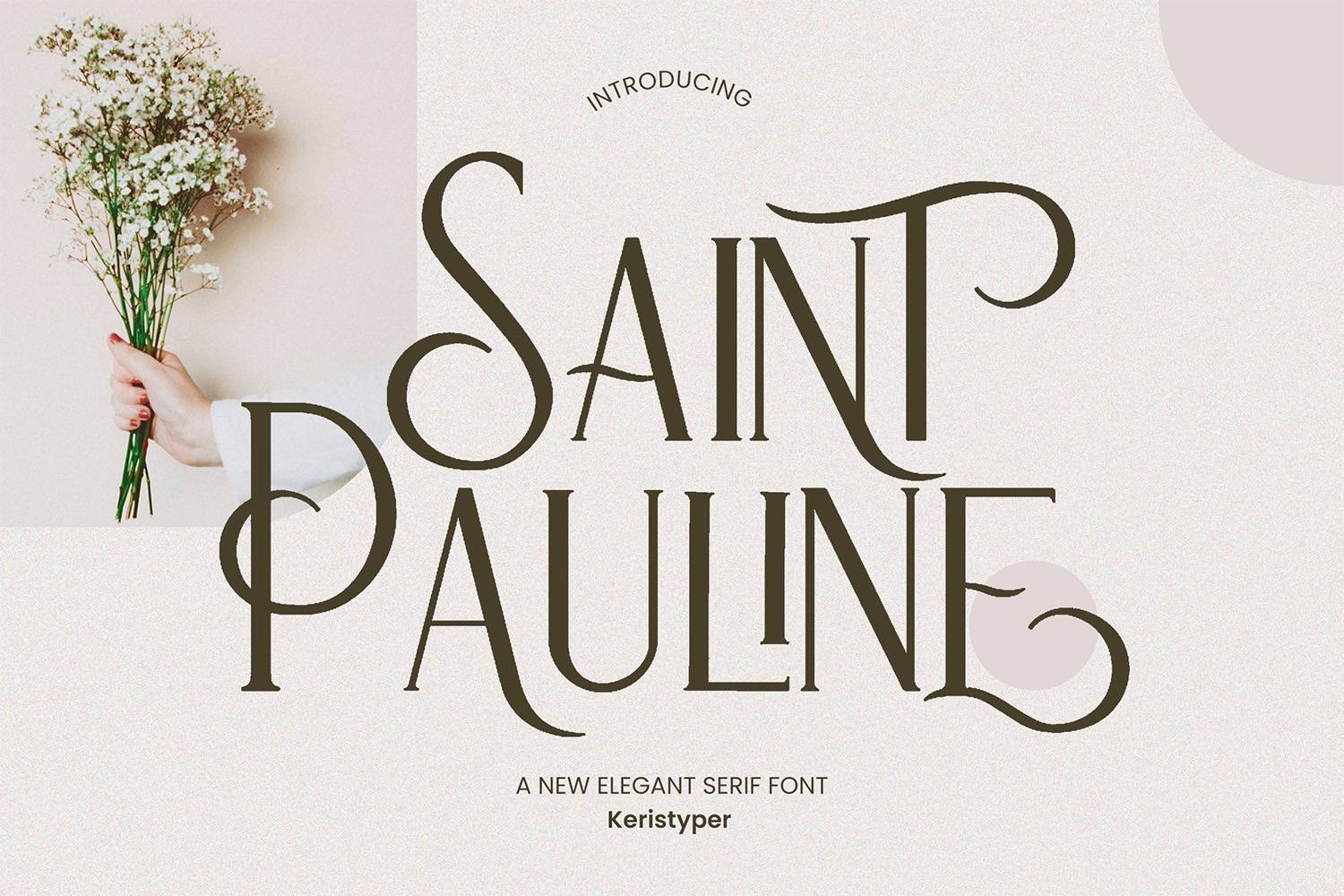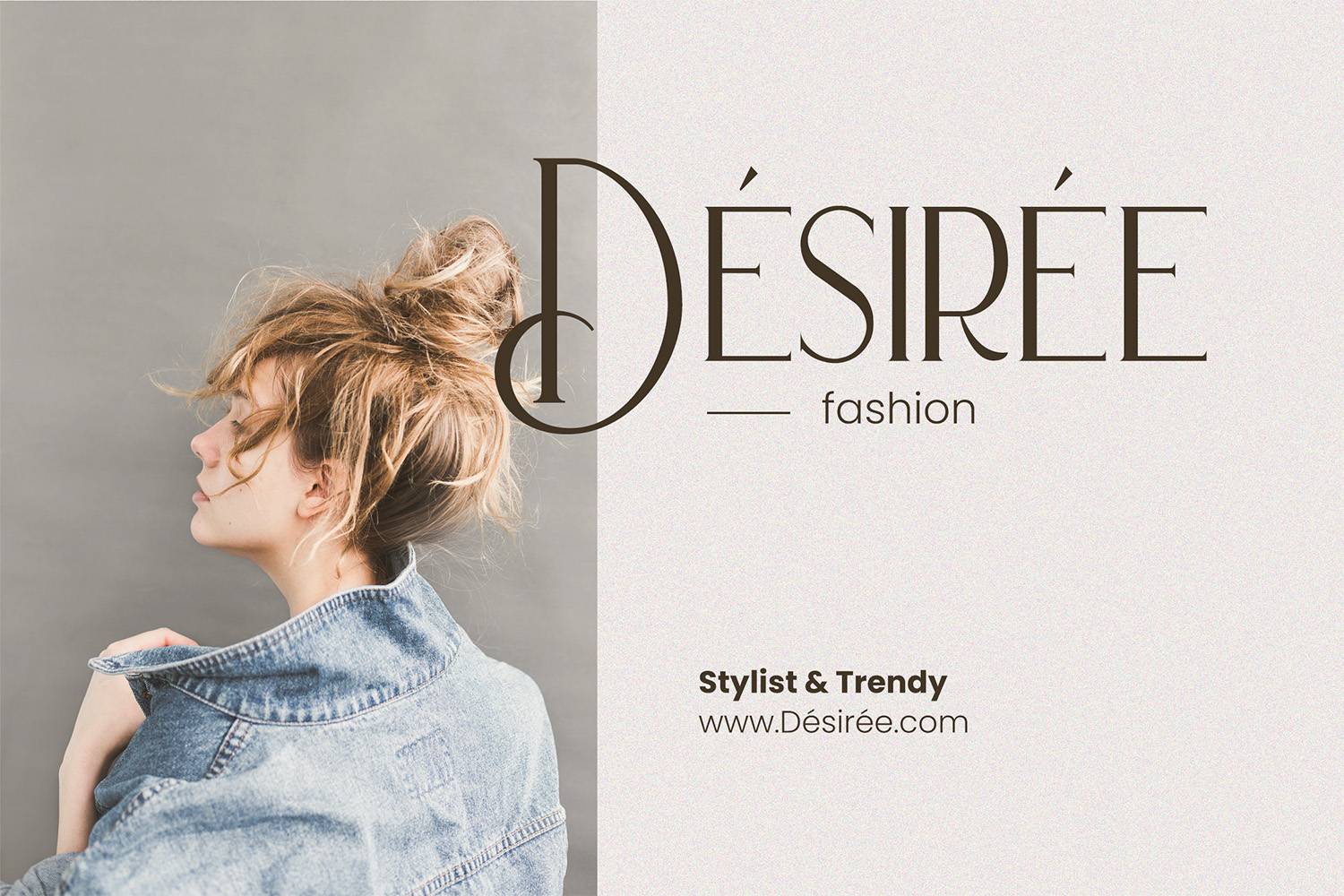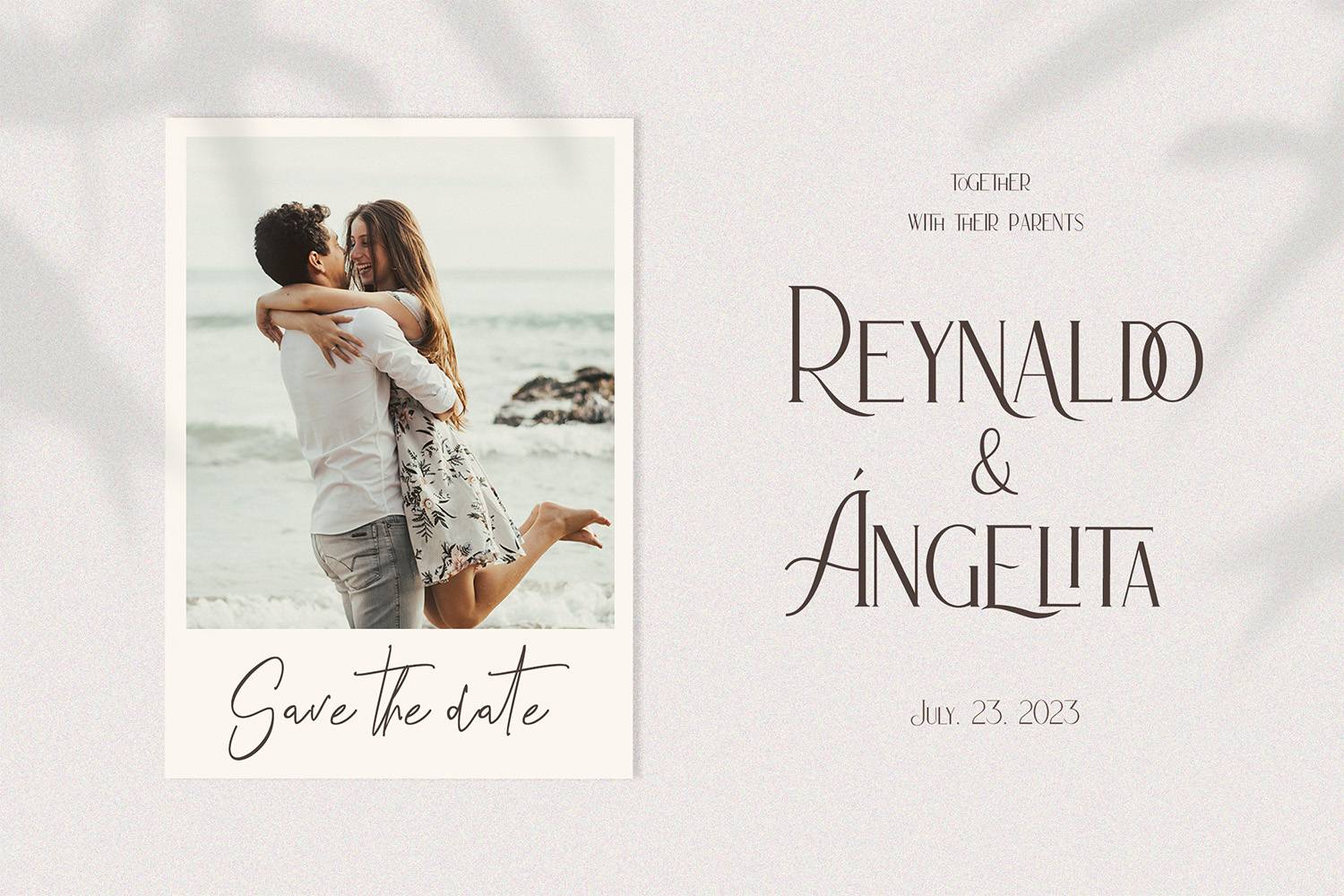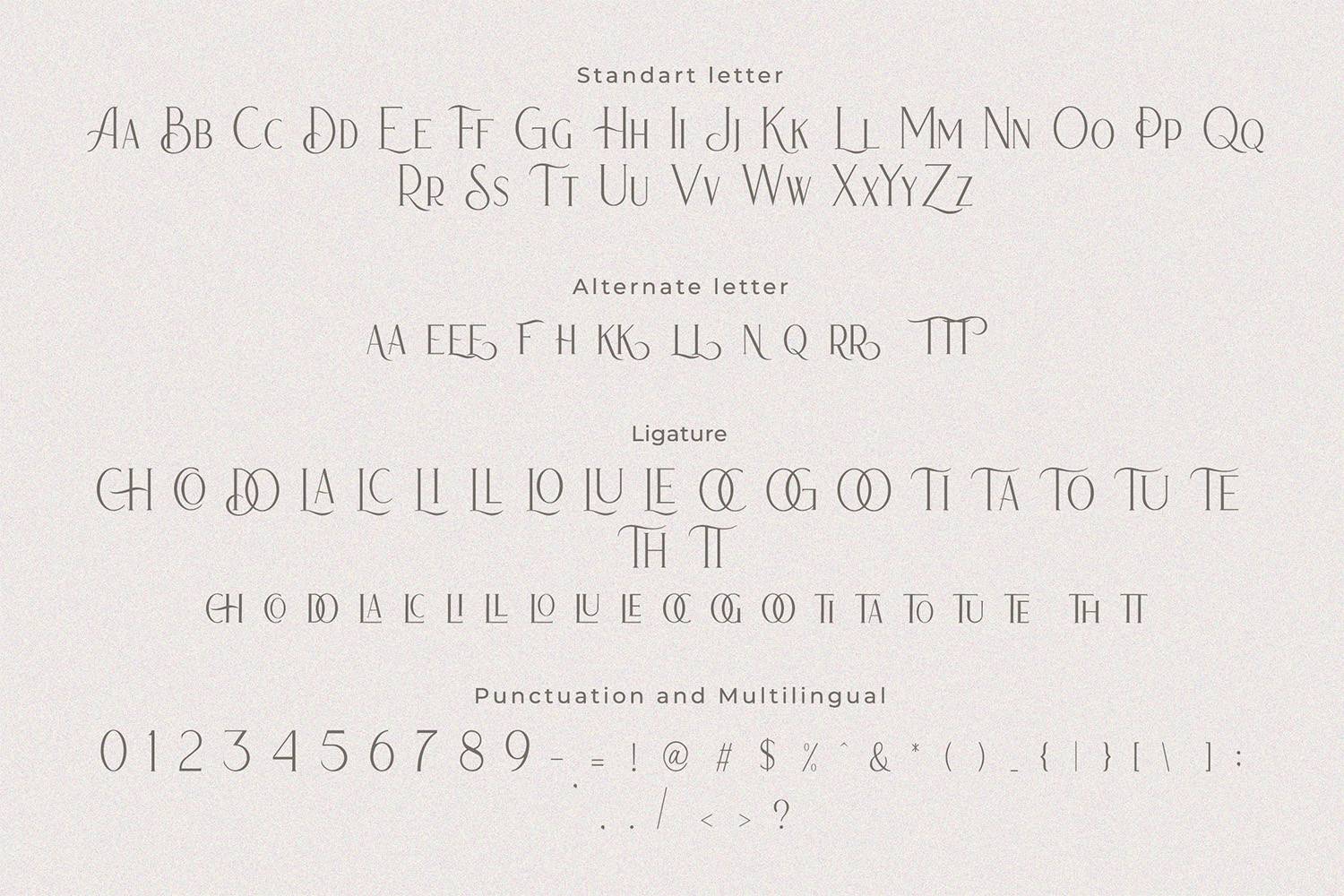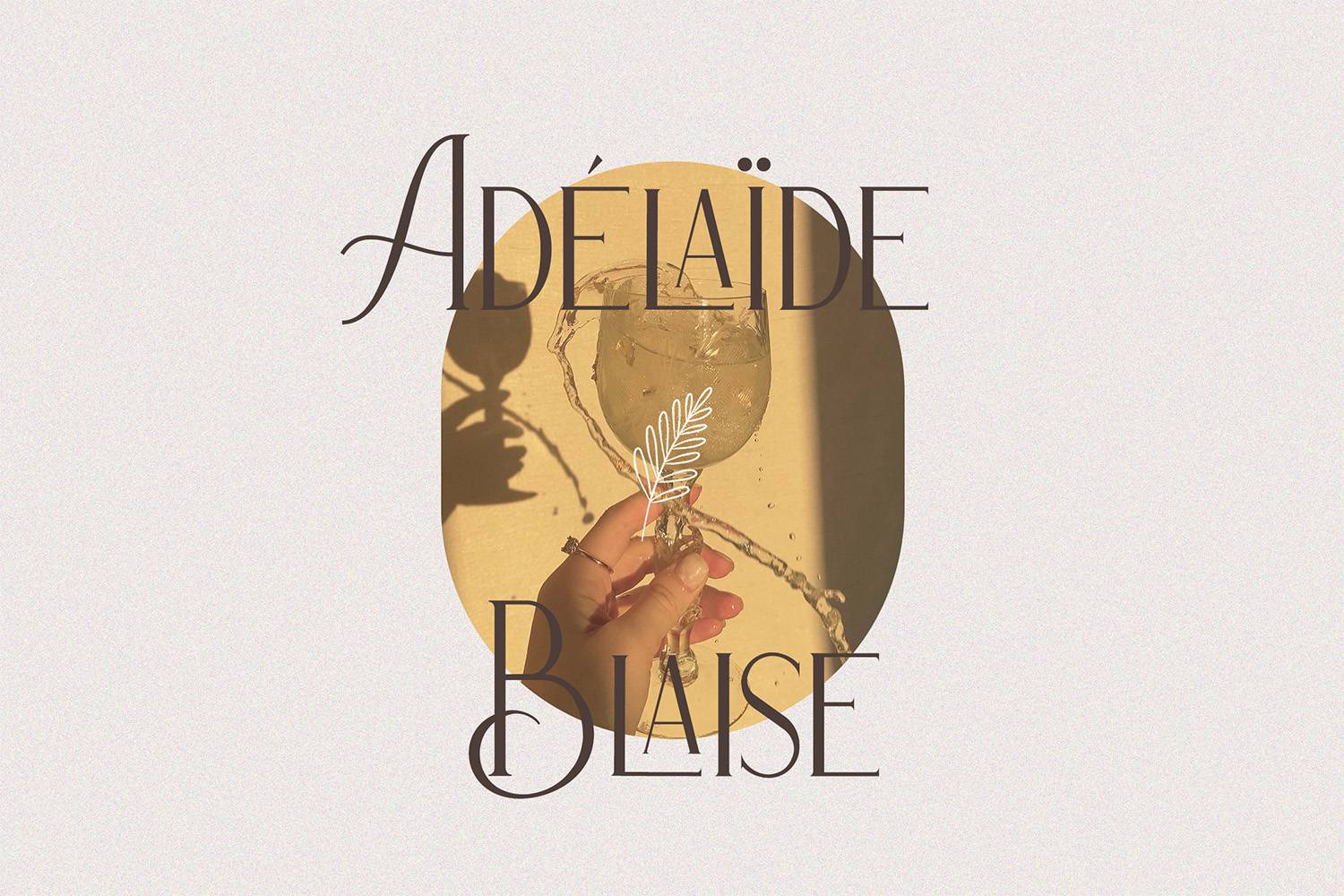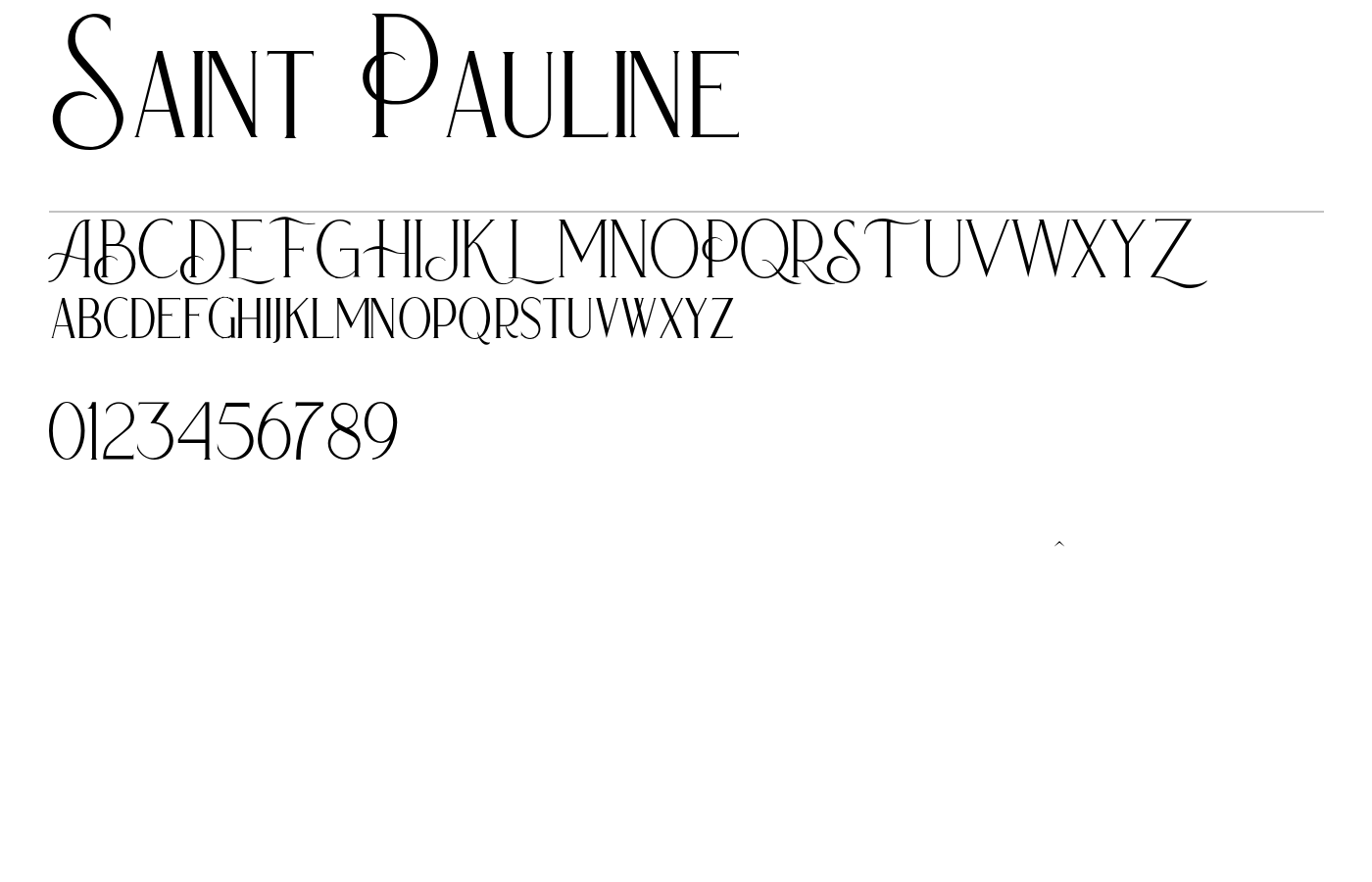
Saint Pauline is a delicate serif typeface characterized by its tall, slender letterforms and elegant high contrast between thick and thin strokes. Its refined, slightly decorative details give it a vintage, art deco-inspired charm that makes it ideal for sophisticated branding, stylish editorial headlines, and upscale packaging. This font’s graceful style communicates elegance and luxury, perfect for projects seeking a distinctive, classy flair.
Saint Pauline Font
About Saint Pauline Font